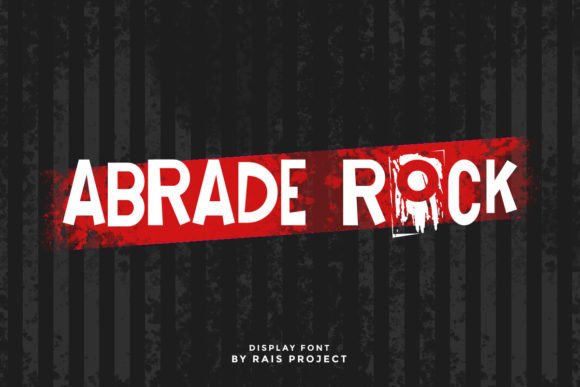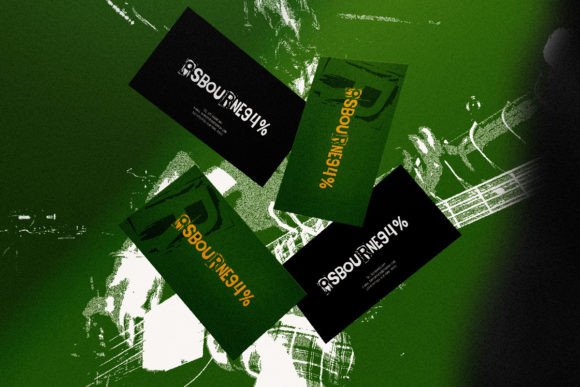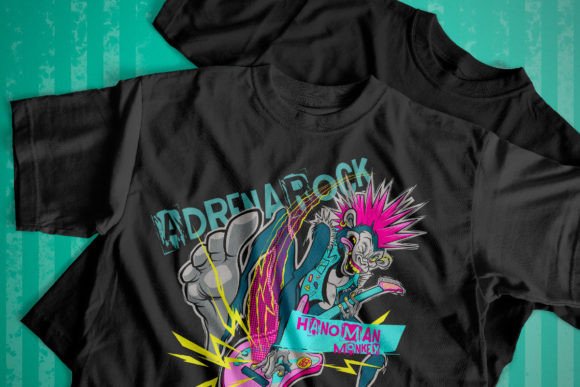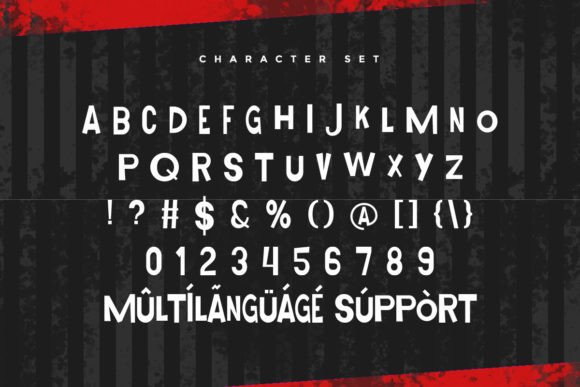
Abrade Rock Font
About the Abrade Rock Font
The Abrade Rock Font offers a perfect balance of form and function for your design needs. Abrade Rock Font is a display font with a special style inspired by band rock and the music industry. This font would be perfect for those who need an artistic look, such as artists, business cards, custom designs, film directors, musicians, posters, and more!
Abrade Rock Font’s strong, slightly aggressive forms make it ideal for headlines, posters, and branding projects needing a bold, rebellious statement. It excels in short, impactful text applications where its unique character can shine. However, its less-than-optimal x-height and weight make it unsuitable for body copy or UI elements requiring high readability.
Consider pairing Abrade Rock with a clean sans-serif like Montserrat for contrast, or a more vintage-inspired serif like Playfair Display for a sophisticated, yet edgy feel. A simpler geometric sans-serif could also work well to provide a modern counterpoint to the font’s rock-and-roll energy.
The overall personality is powerful and edgy, fitting brands targeting a younger demographic or those in music, entertainment, or fashion industries that want to project a bold, rebellious image.
Abrade Rock Font Usage Examples
Abrade Rock Font Example